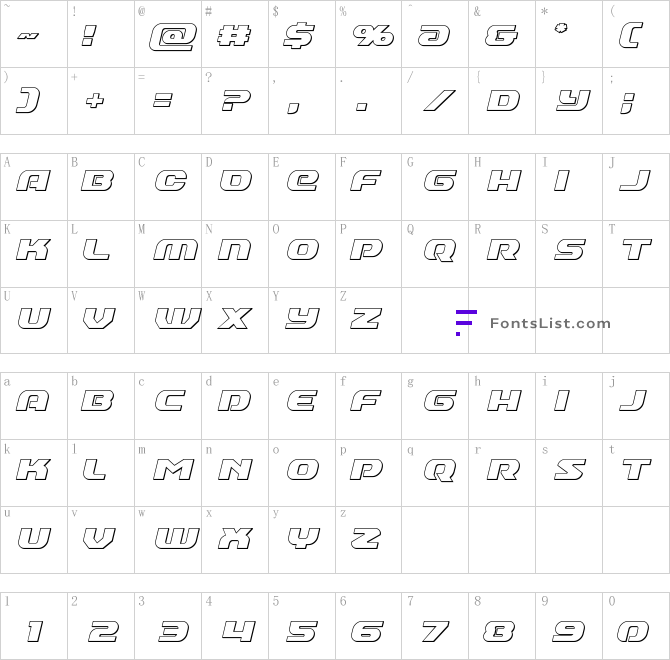
- Font Name:Annapolis Outline Italic
Annapolis-Outline-Italic.ttf is a very beautiful artistic font, Annapolis-Outline-Italic.ttf is widely used in the design and printing of various books and pictures,Annapolis-Outline-Italic.ttf has a strong visual impact,Annapolis-Outline-Italic.ttf is a commonly used font in newspapers, magazines and books, and is used in posters, e-commerce Poster design, store design, logo design, font design and other fields.Annapolis-Outline-Italic.